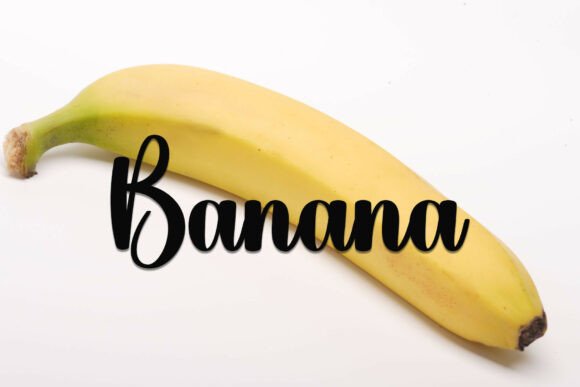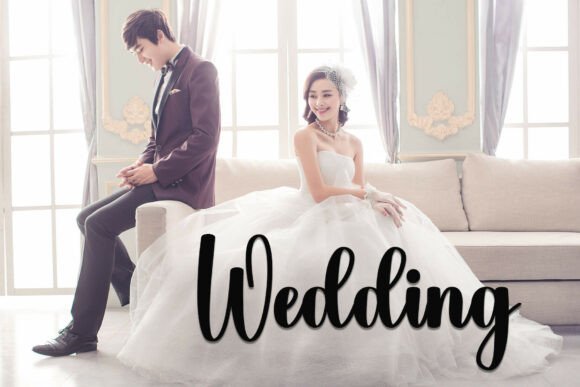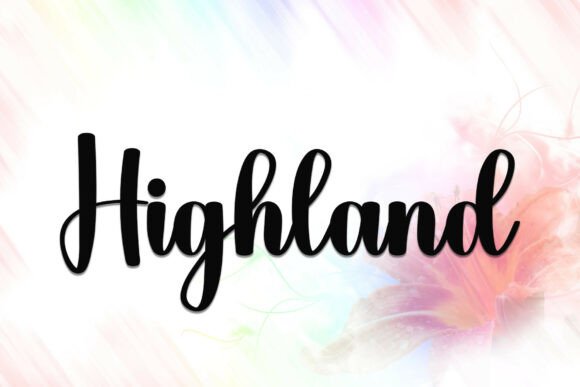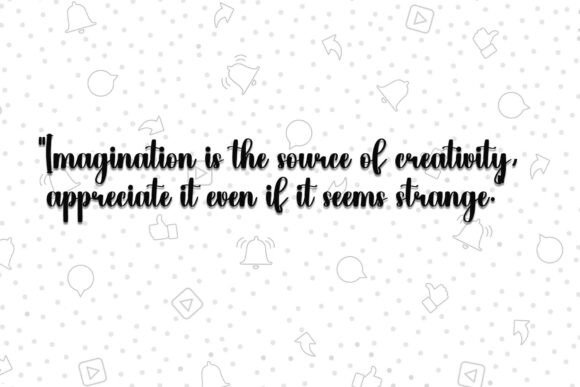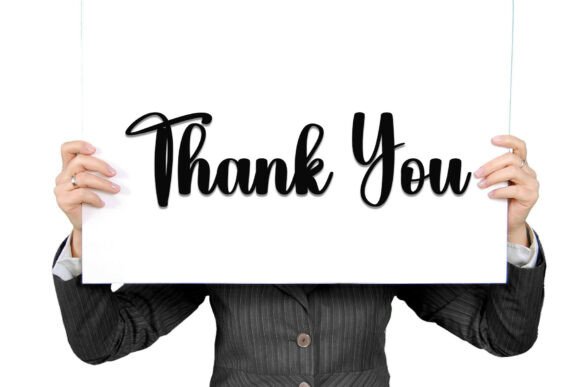
Christmas December Font: Elevate Your Holiday Projects with Modern Calligraphy
The holiday season is upon us, and with it comes the joy of creating festive and inviting projects that capture the spirit of Christmas. Whether you’re a designer, crafter, or social media enthusiast, having the right font can make all the difference in conveying warmth, charm, and festivity. Introducing Christmas December, a modern calligraphy font designed to bring a touch of elegance and playfulness to your holiday-themed projects.
A Font that Embodies the Holiday Spirit
Christmas December is a hand-lettered font that exudes a sense of sophistication and whimsy, making it perfect for a wide range of applications, from Christmas cards and invitations to signage, social media graphics, and seasonal branding. Its smooth, flowing curves and delicate lines evoke a sense of nostalgia and wonder, transporting your audience to a magical winter wonderland.
Key Features of Christmas December Font
- Modern Calligraphy Style: Christmas December boasts a modern calligraphy style that is both elegant and approachable, making it suitable for a variety of design projects.
- Smooth and Flowing Curves: The font’s smooth, flowing curves give it a hand-lettered feel that is both personal and inviting.
- Elegant yet Playful: Christmas December strikes the perfect balance between elegance and playfulness, making it ideal for both formal and informal holiday projects.
- Versatile: This font is versatile enough to be used for both personal and commercial projects, from Christmas cards and invitations to branding and advertising.
Christmas December is the perfect font for a wide range of holiday projects, including:
- Christmas Cards: Create beautiful and heartfelt Christmas cards that will make your loved ones feel special.
- Invitations: Design festive and inviting holiday party invitations that will get your guests in the mood for celebration.
- Signage: Use Christmas December to create eye-catching holiday signage that will attract customers and add to the festive atmosphere.
- Social Media: Elevate your holiday social media graphics with a font that is sure to capture the attention of your followers.
- Seasonal Branding: Incorporate Christmas December into your seasonal branding to create a cohesive and festive visual identity.
Why Choose Christmas December Font?
With so many fonts to choose from, why should you choose Christmas December for your holiday projects? Here are just a few reasons:
- Unique and Eye-Catching: Christmas December is a unique and eye-catching font that will set your projects apart from the crowd.
- Easy to Read: Despite its elegant and cursive style, Christmas December is easy to read, making it perfect for both short and long texts.
- Highly Versatile: This font is highly versatile and can be used for a wide range of projects, from digital to print.